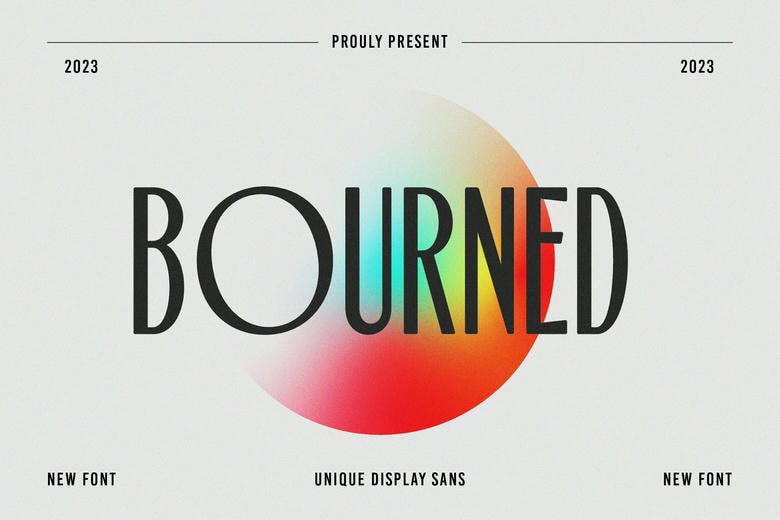
Bourned Font
Bourned is a unique display sans typeface that combines modern aesthetics with a distinct character. Its clean, geometric lines and bold forms make it perfect for creating striking headlines, posters, and branding that stand out.
Bourned’s contemporary design offers both readability and visual impact, making it versatile for a wide range of creative projects. Whether used for digital interfaces, print media, or packaging, Bourned adds a sleek, modern touch with its unmistakable style.
Bourned Sans Serif Font